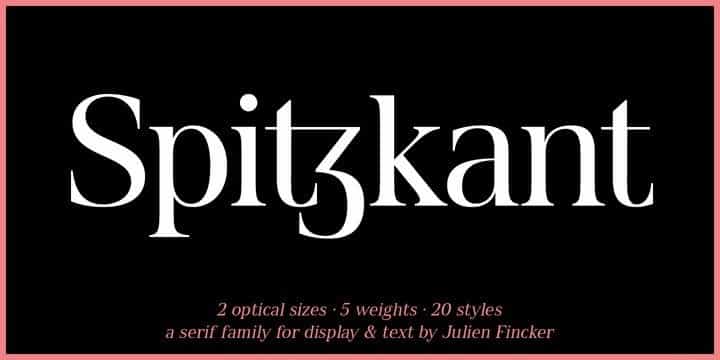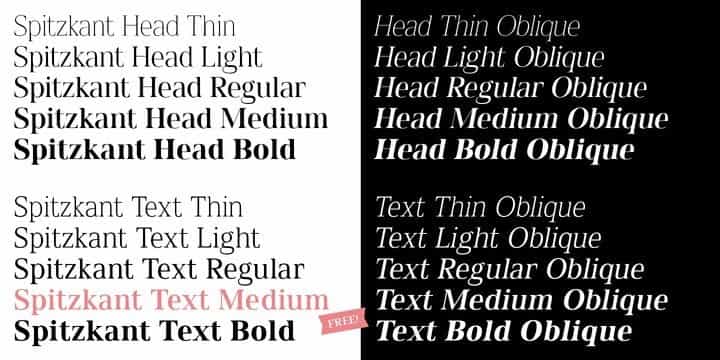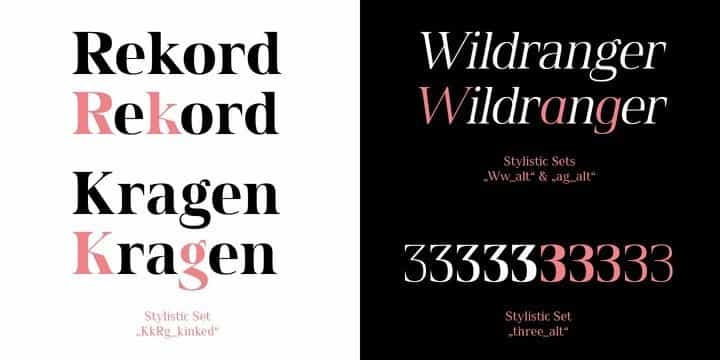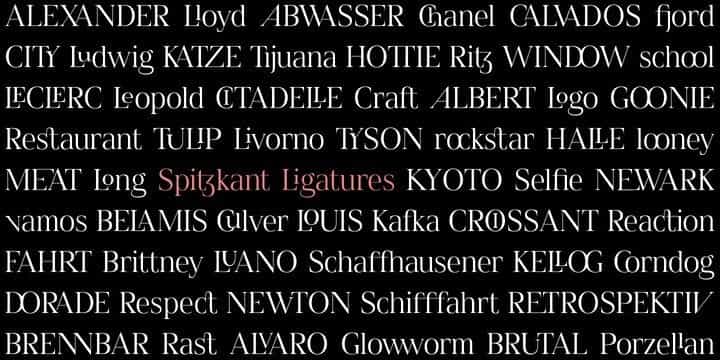
Spitzkantis is a bold font with medium contrast. Careful design of its shorter ascender creates a solid appearance while its sharp serif font provides additional support.